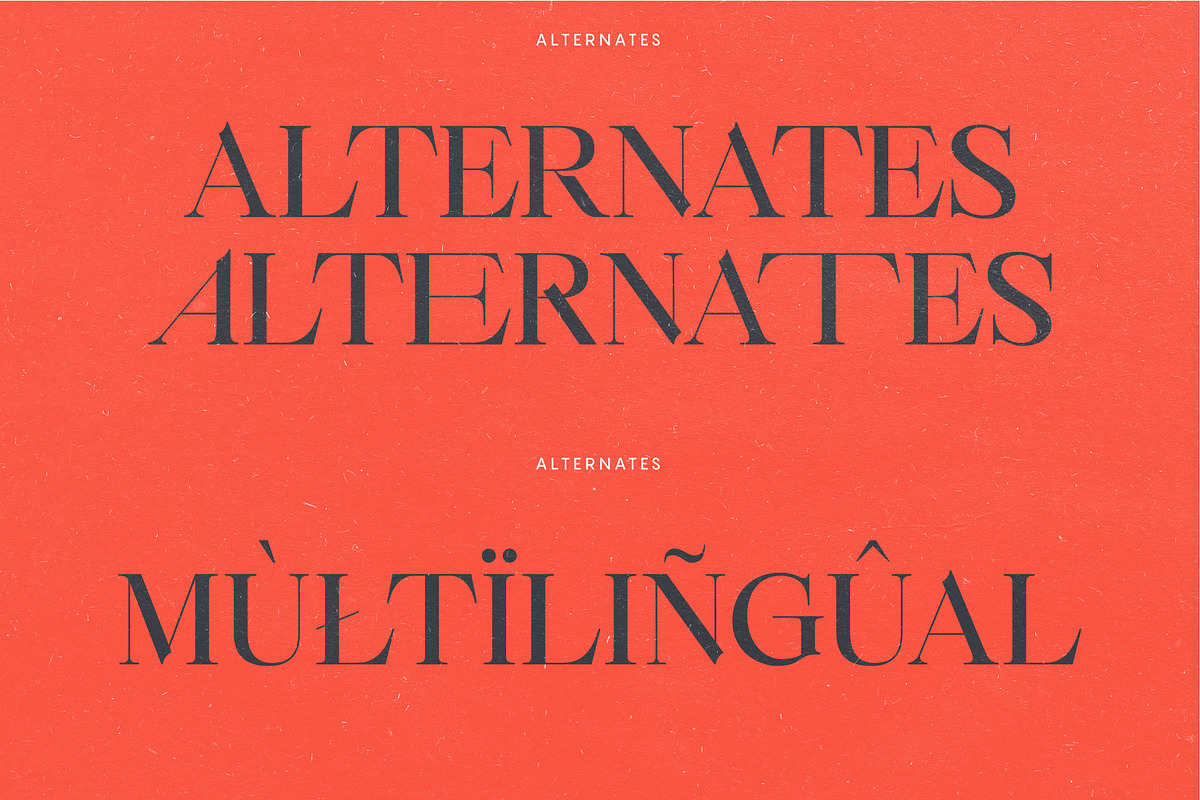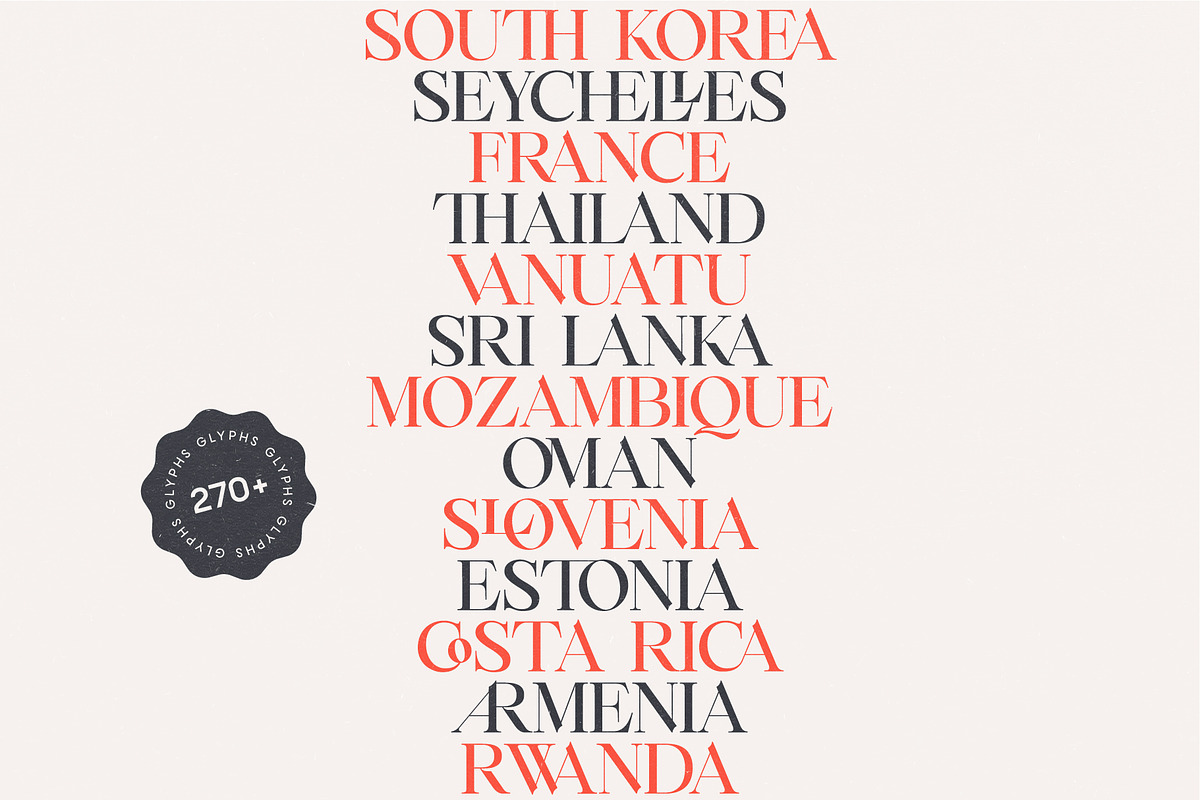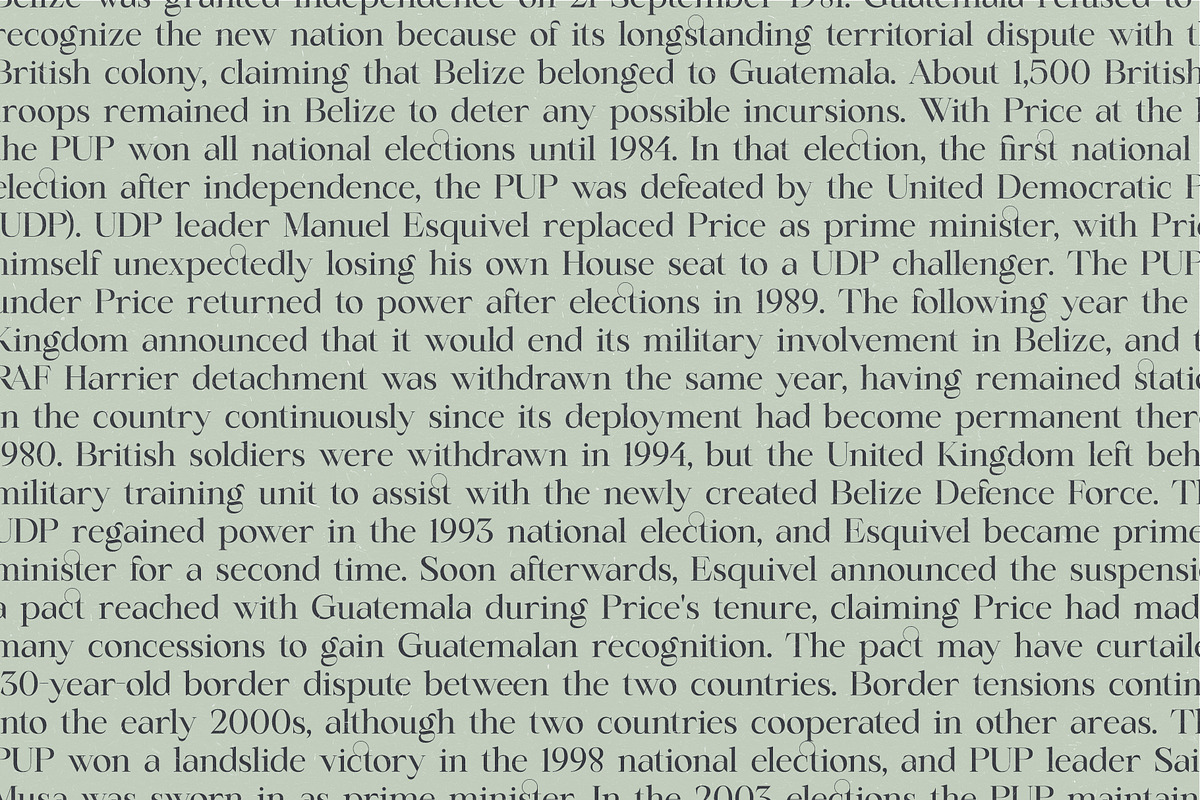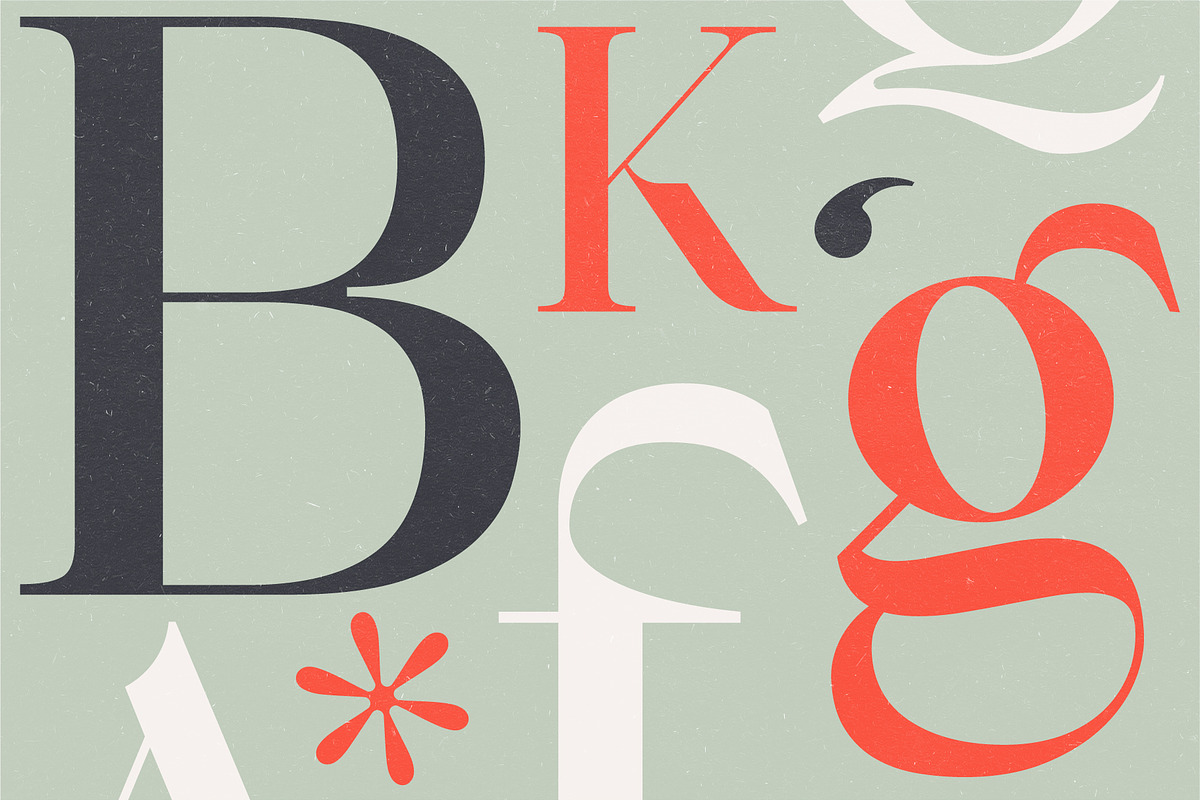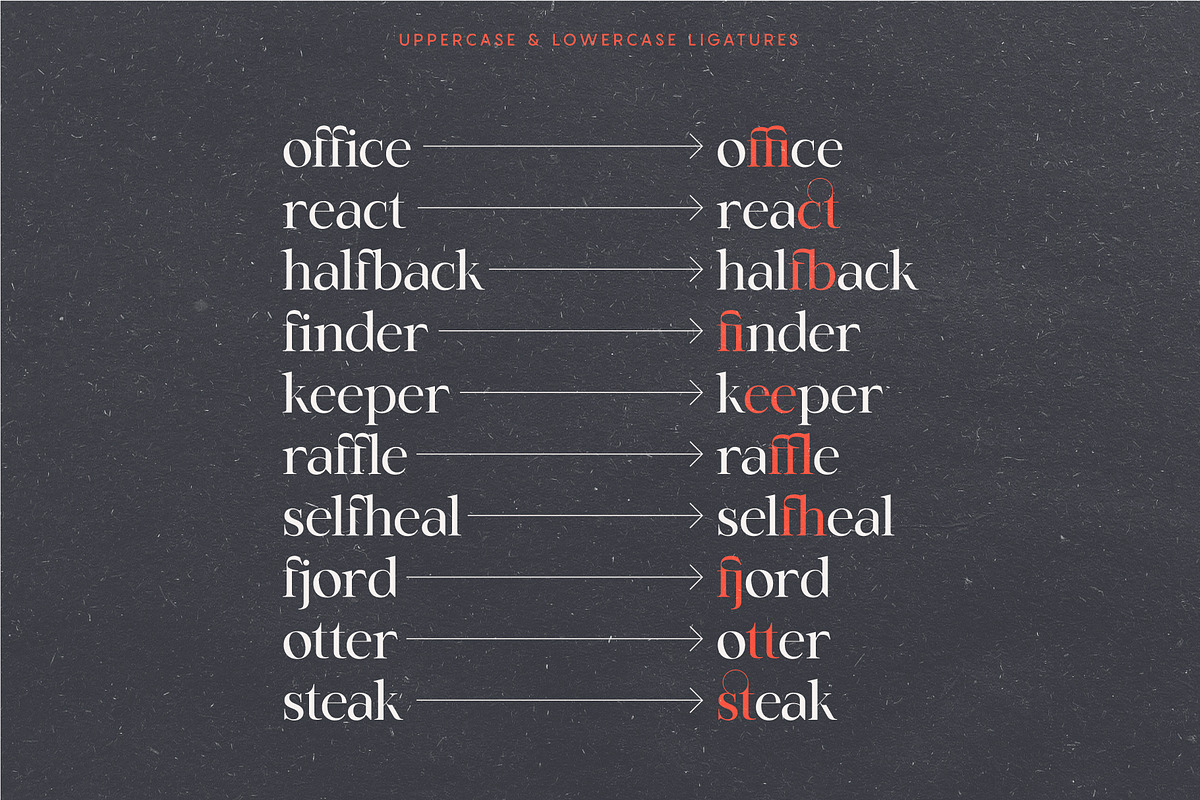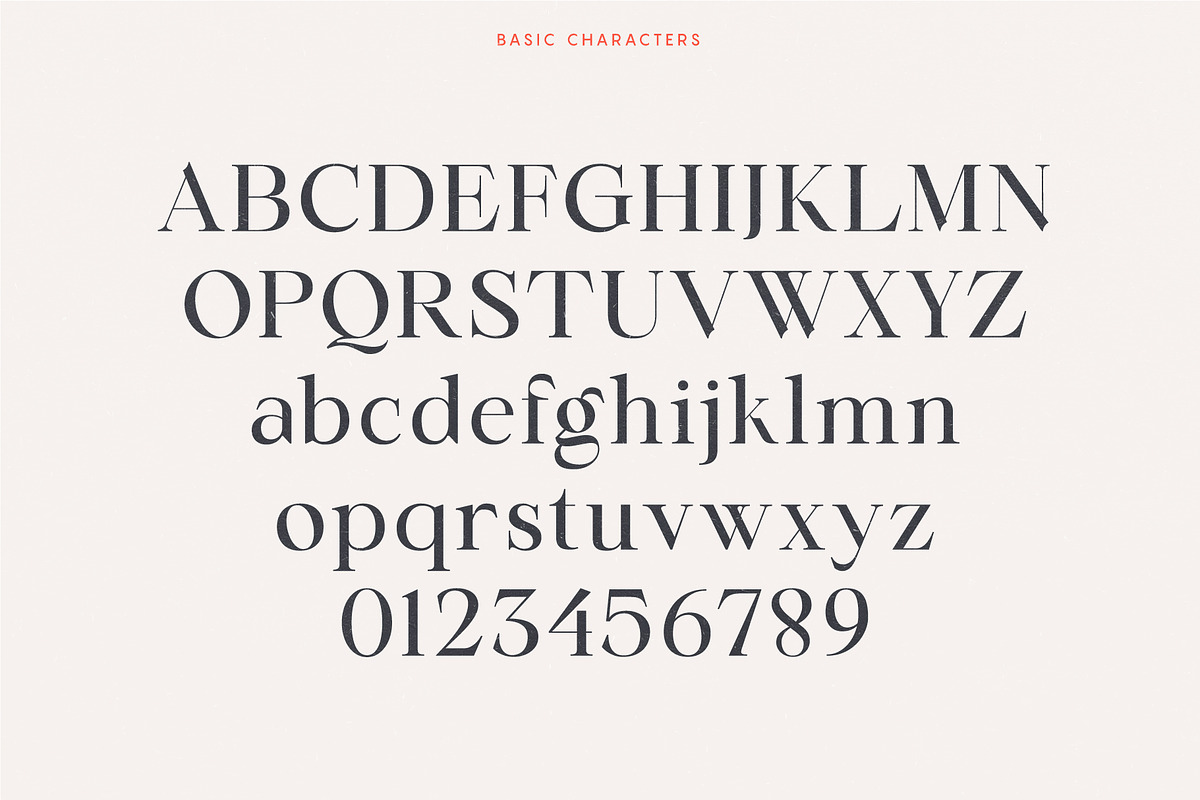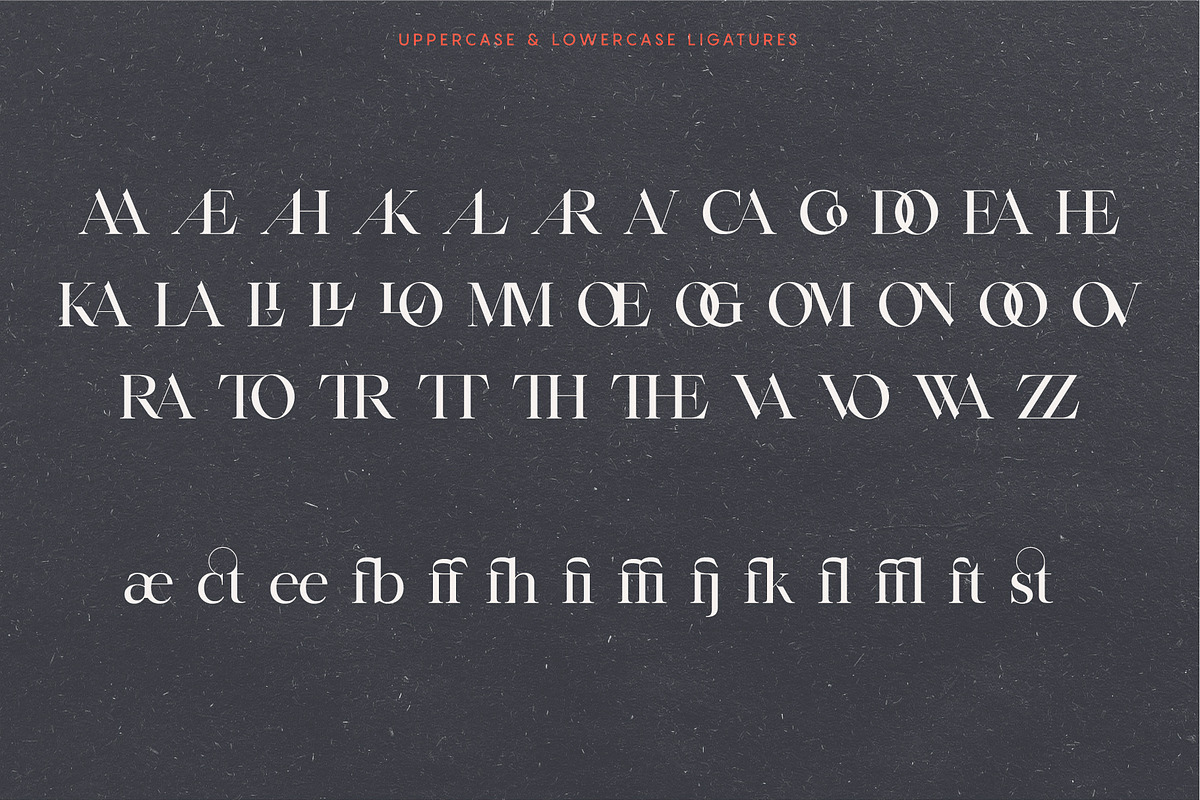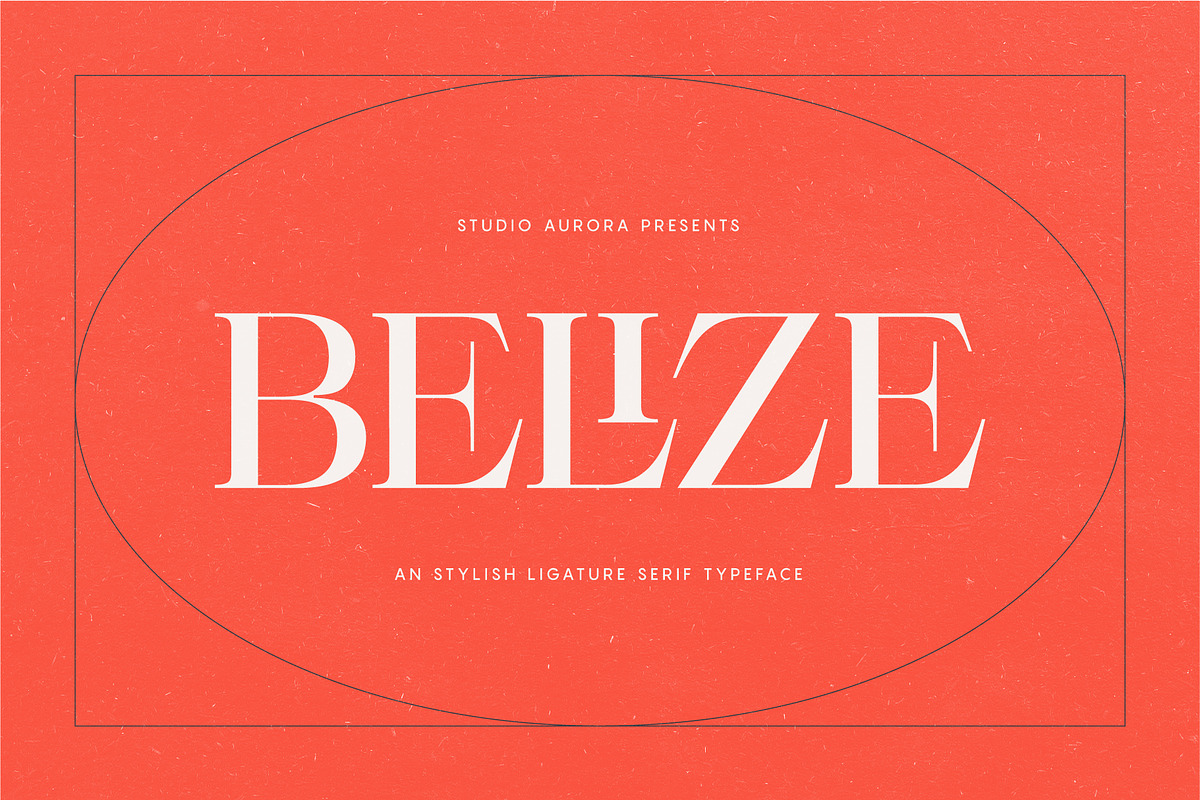
Belize - Stylish Ligature Serif Font
Introducing our new typeface, Belize - A stylish, ligature and alternate character rich serif typeface.
This is a display serif font that we recommend using in the following types of work; magazines (titles and layouts), logos and branding, invitations, quotes, blog headers, posters, advertising, and body copy.
Language Support: Afrikaans, Albanian, Catalan, Danish, Dutch, English, French, German, Italian Norwegian, Portuguese, Spanish, Swedish and Zulu.
Uppercase and lowercase glyphs
Unique ligature glyphs